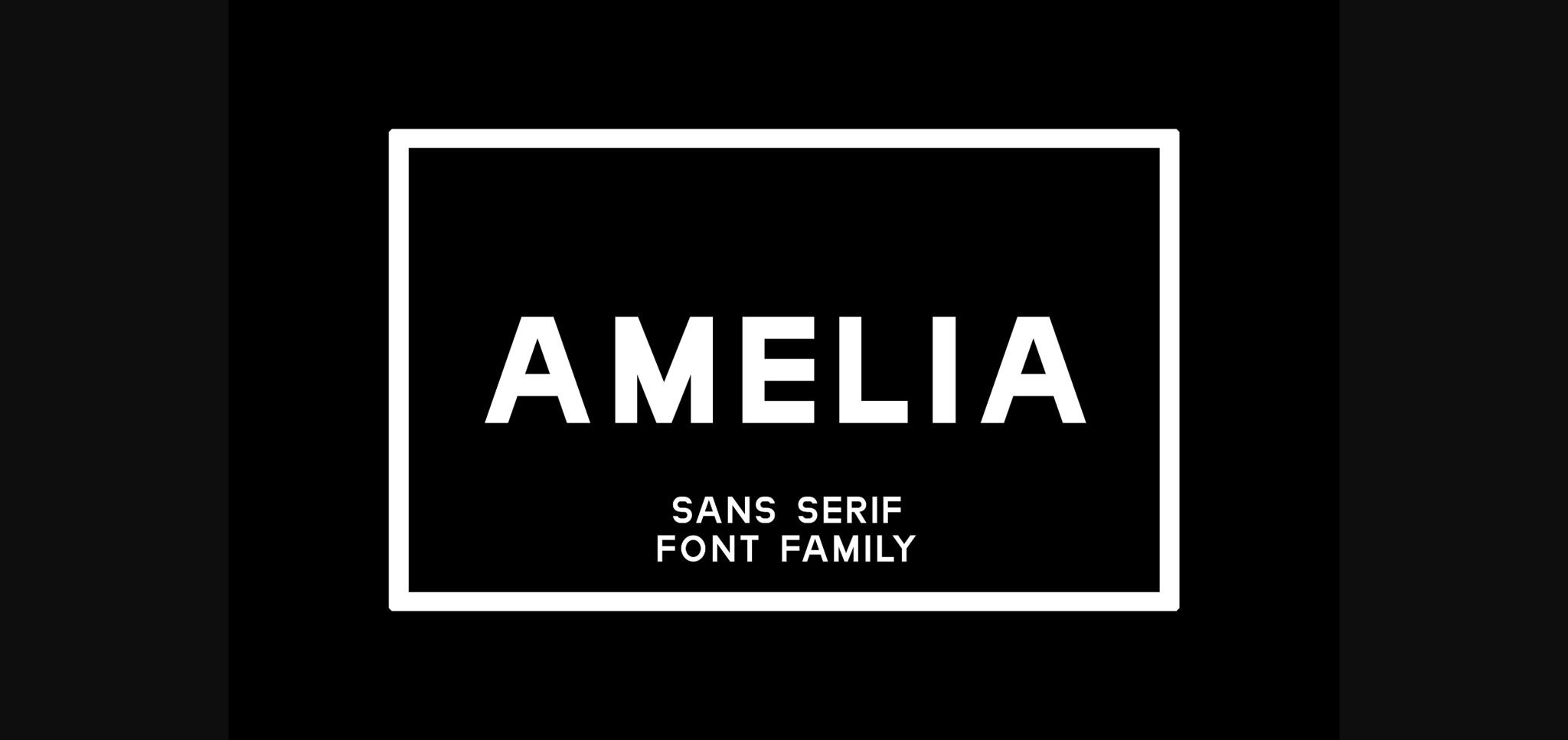
About Amelia Font
Amelia is the epitome of refinement in the realm of sans serif fonts. Its pristine appearance and elegant demeanor make it a versatile choice for a wide array of design projects. With its clean lines and impeccable readability, Amelia effortlessly integrates into any creative concept, enhancing its visual appeal and leaving a lasting impression on viewers.
This font’s understated sophistication adds a touch of class to every design it graces. Whether adorning a website interface, print publication, or branding materials, Amelia exudes a timeless charm that captivates the audience and elevates the overall presentation. Its versatility knows no bounds, seamlessly adapting to various design styles and objectives with ease.
By incorporating Amelia into your creative endeavors, you unlock a world of possibilities. Its versatility allows it to effortlessly complement diverse design elements, ensuring cohesion and harmony within your projects. Whether used for headlines, body text, or graphic elements, Amelia enhances the overall aesthetic and readability, making your designs truly stand out.
In the digital landscape, where user experience is paramount, Amelia shines. Its clarity and legibility ensure optimal readability across screens of all sizes, enhancing accessibility and engagement. Whether viewed on desktops, tablets, or smartphones, this font retains its integrity, delivering a seamless experience across platforms.
In conclusion, Amelia transcends the confines of a mere font; it is a beacon of elegance and sophistication. By embracing the versatility of Amelia, you unlock endless creative possibilities, where every design stands out with grace and finesse. Embrace the timeless allure of Amelia, and let your designs shine brighter than ever before.